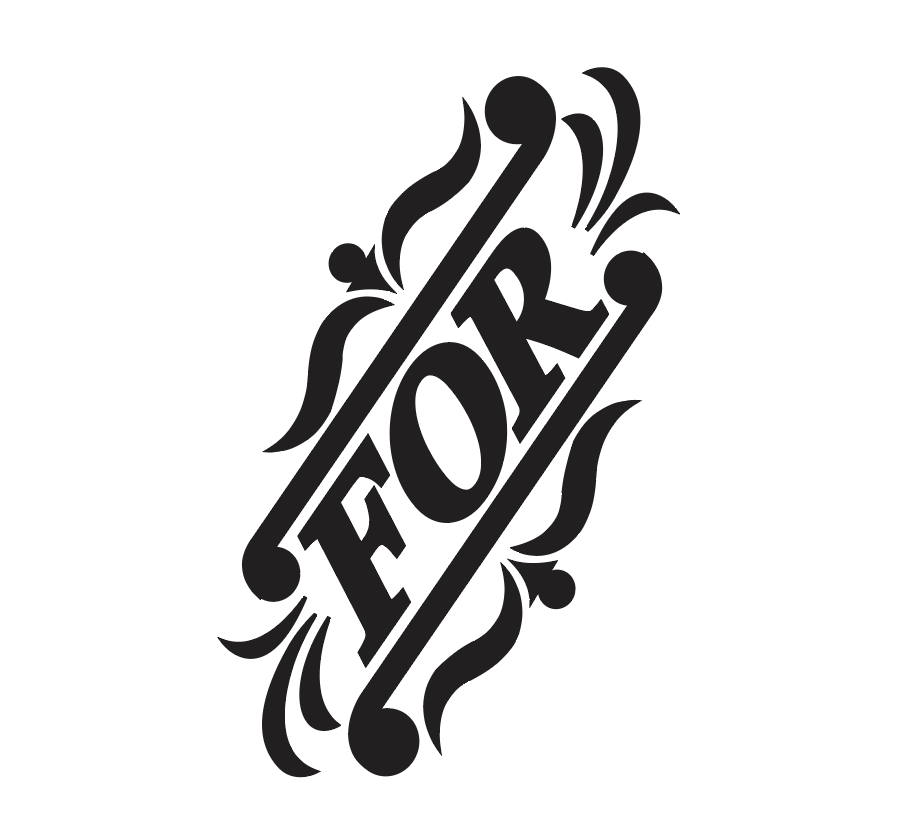
Inspired by Morgans & Wilcox as well as Hamilton Wood Type
Cut by Scott Moore
Set 1– “and”, “the”, “to”, “with”
Set 2– “from”, “for”, “or”, “at”, “of”
This set is based on “And,” “The,” and “Of” from Morgans & Wilcox and Hamilton #17. While tracing them, I realized they could be rotated 90° and still look great for vertical or horizontal use.
They first debuted at the 2025 APA Wayzgoose.